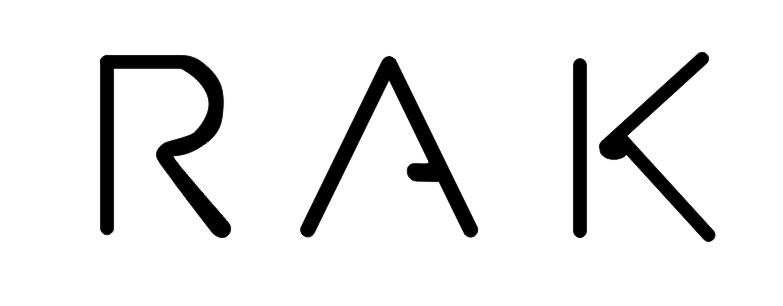
No luck on What the Font
Any ideas on this?
I don't think it's a font. The "R" in particular has some visible glitches and the left stroke is less bold than the rest of it. More likely it was just three letters created from scratch by someone without a well developed attention to detail.
I'm in agreement with Fred. I've never seen that as a font.....or remotely close as far as at least those three characters go.
When in doubt ... always look for the PDF.
Opening the PDF we find that it is, indeed, handdrawn and not a font. Attached is the logo extracted from the original PDF, enlarged and strokes expanded to paths.